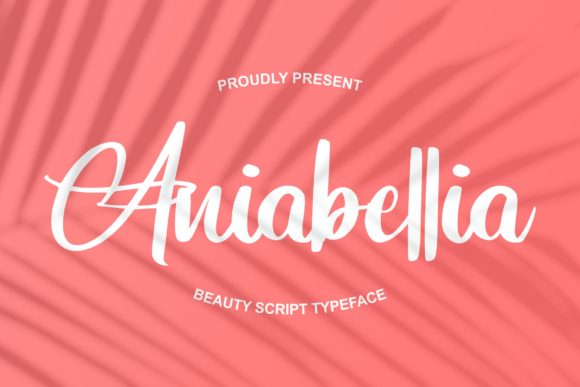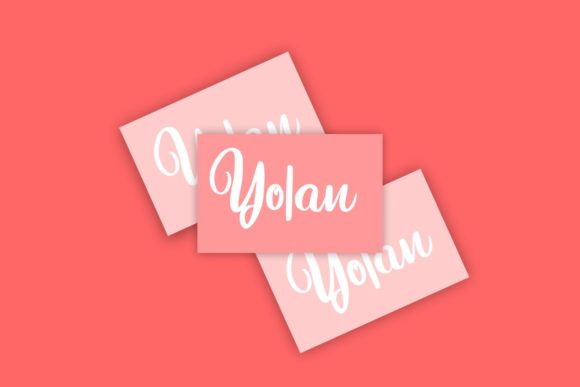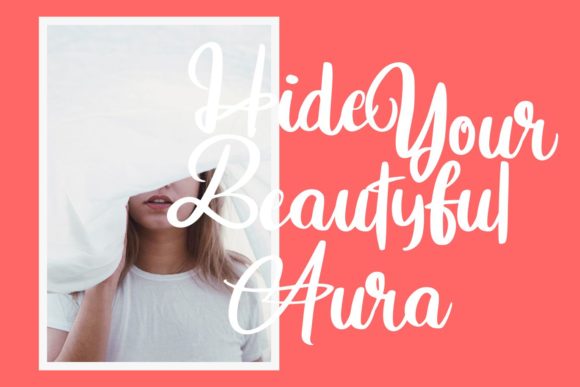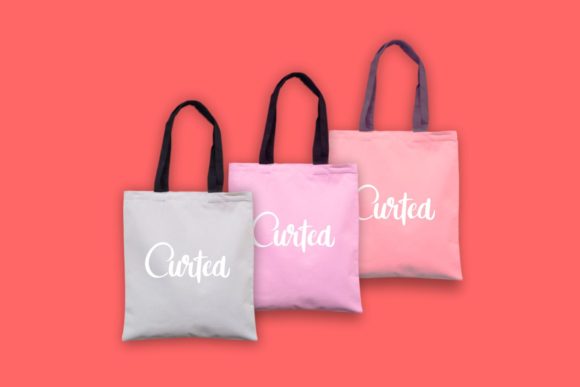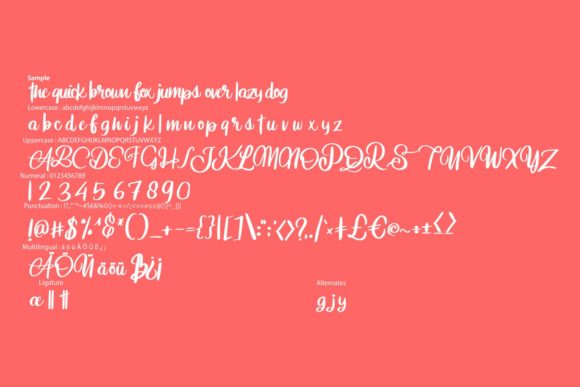
Aniabellia Font
About Aniabellia Font
Aniabellia is an equally charming and unique script that radiates authenticity. It features smoothly balances letters that will add a friendly feel in an instant.